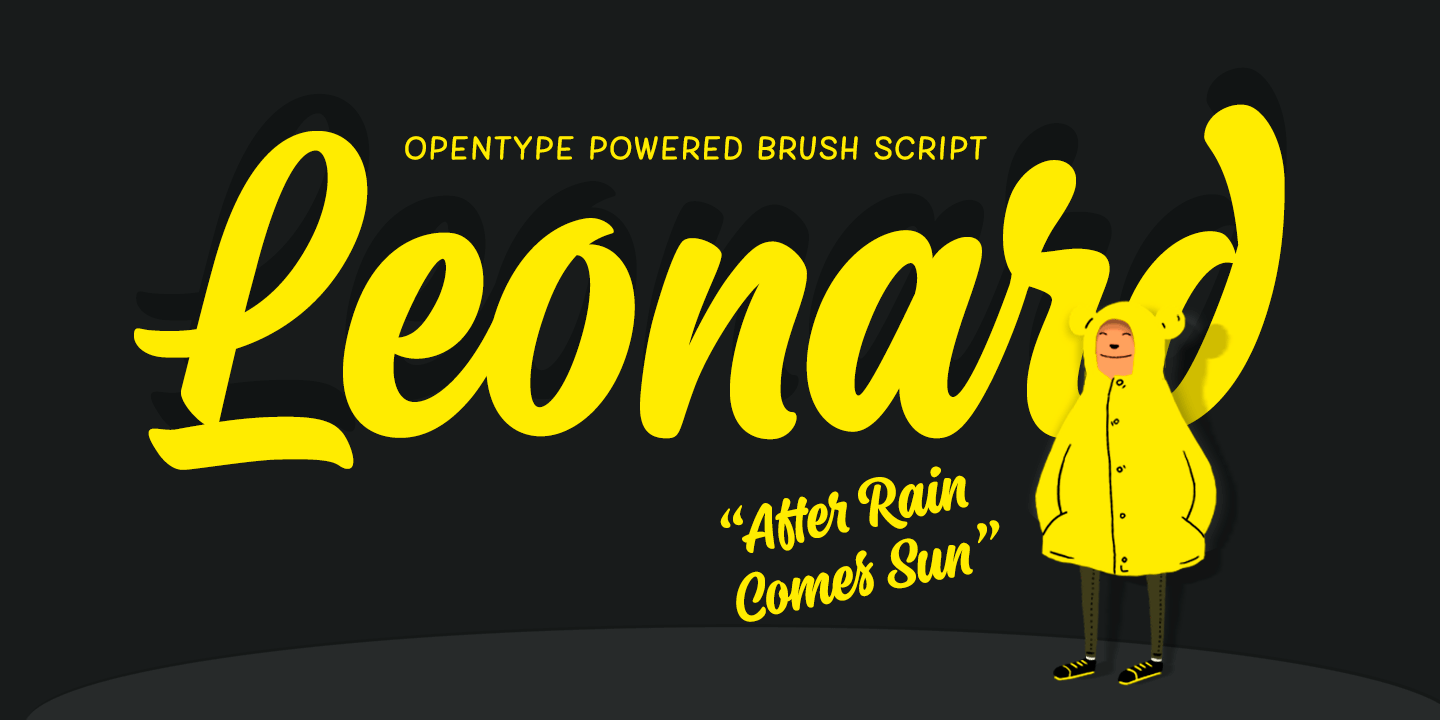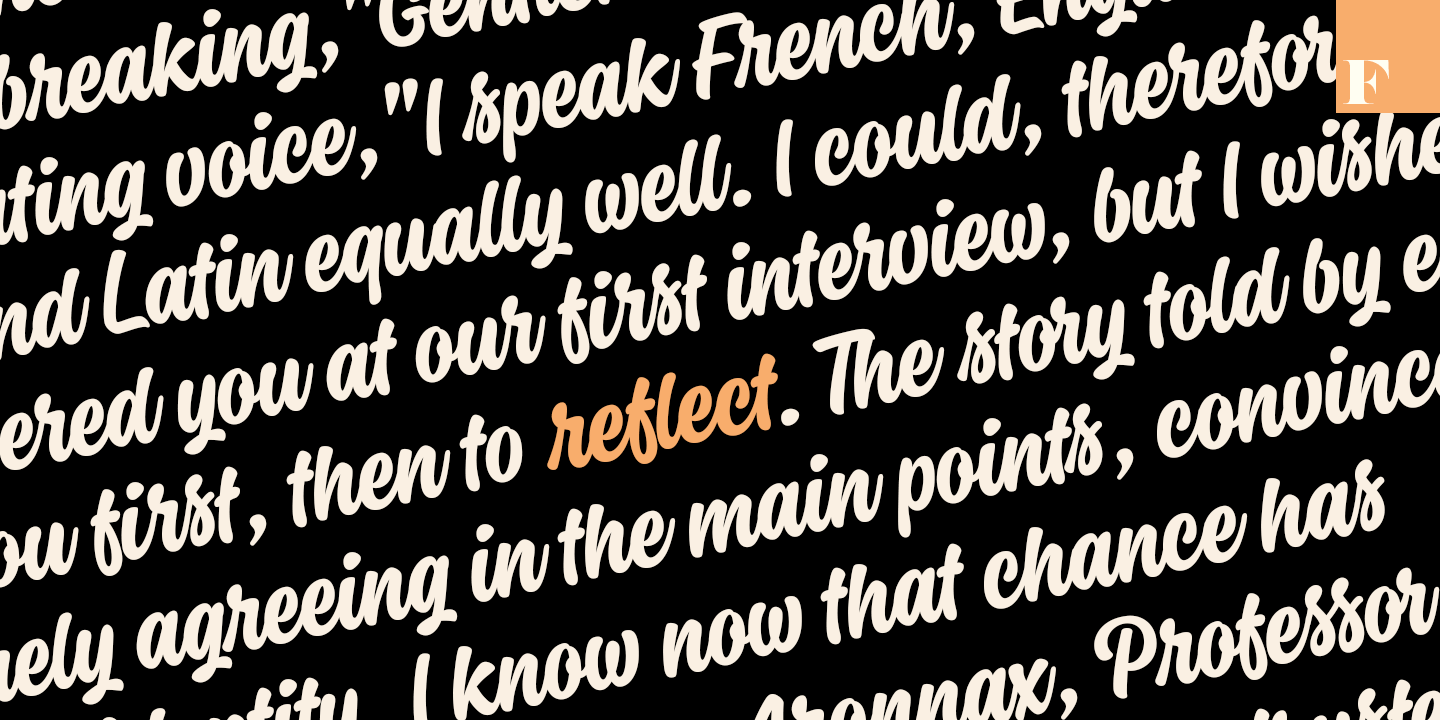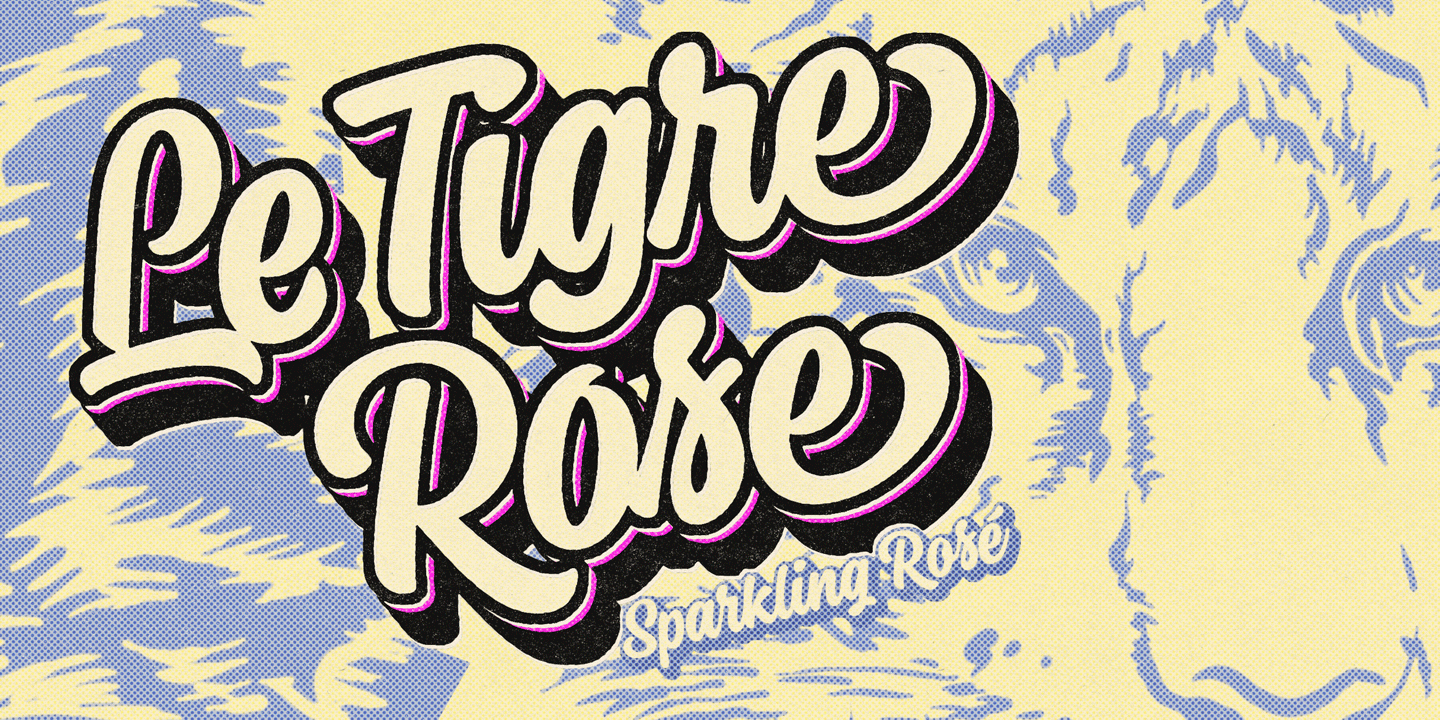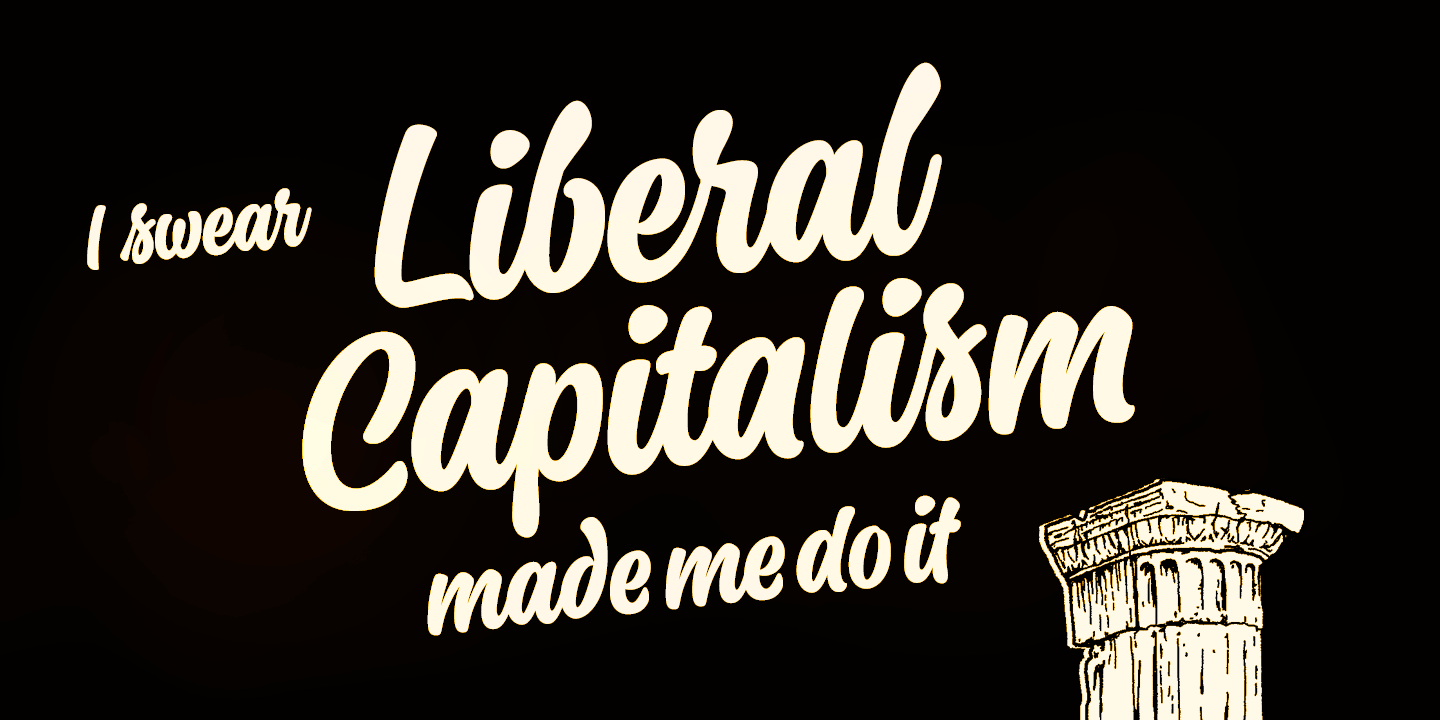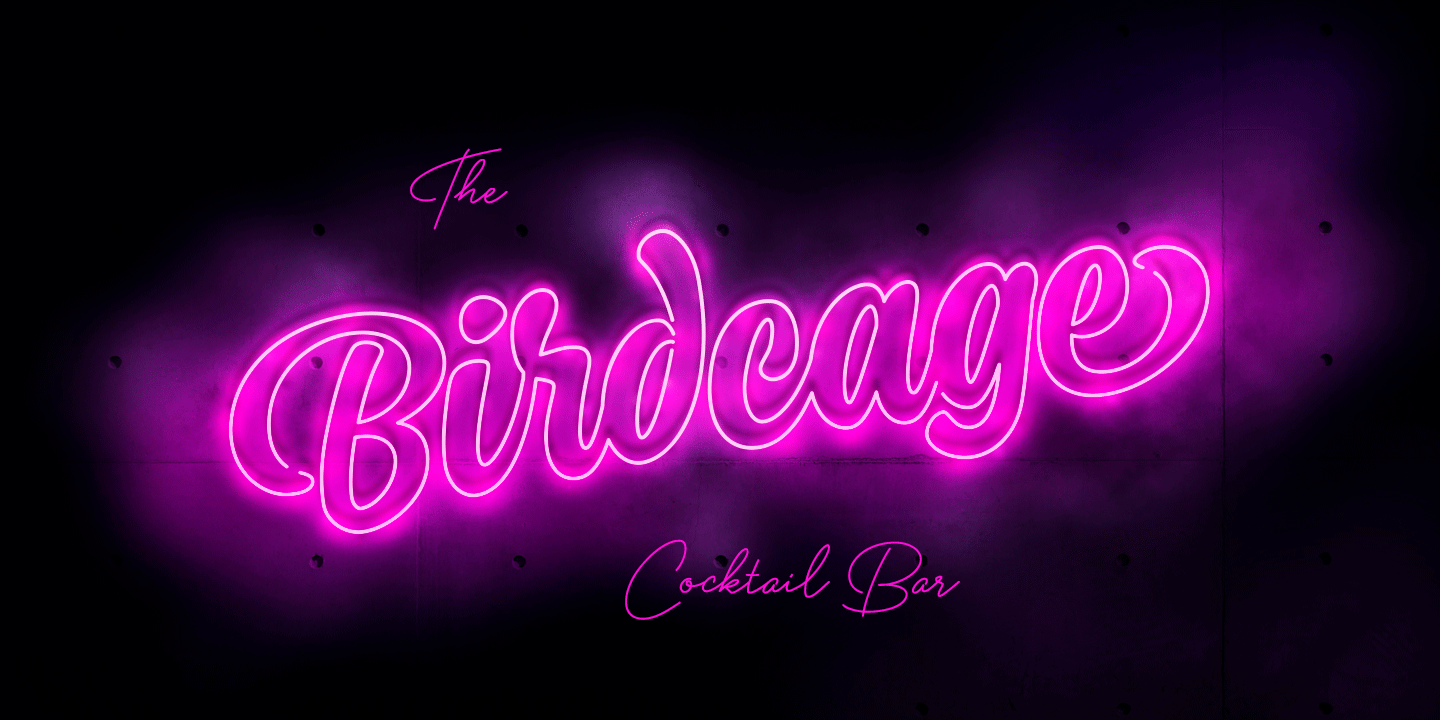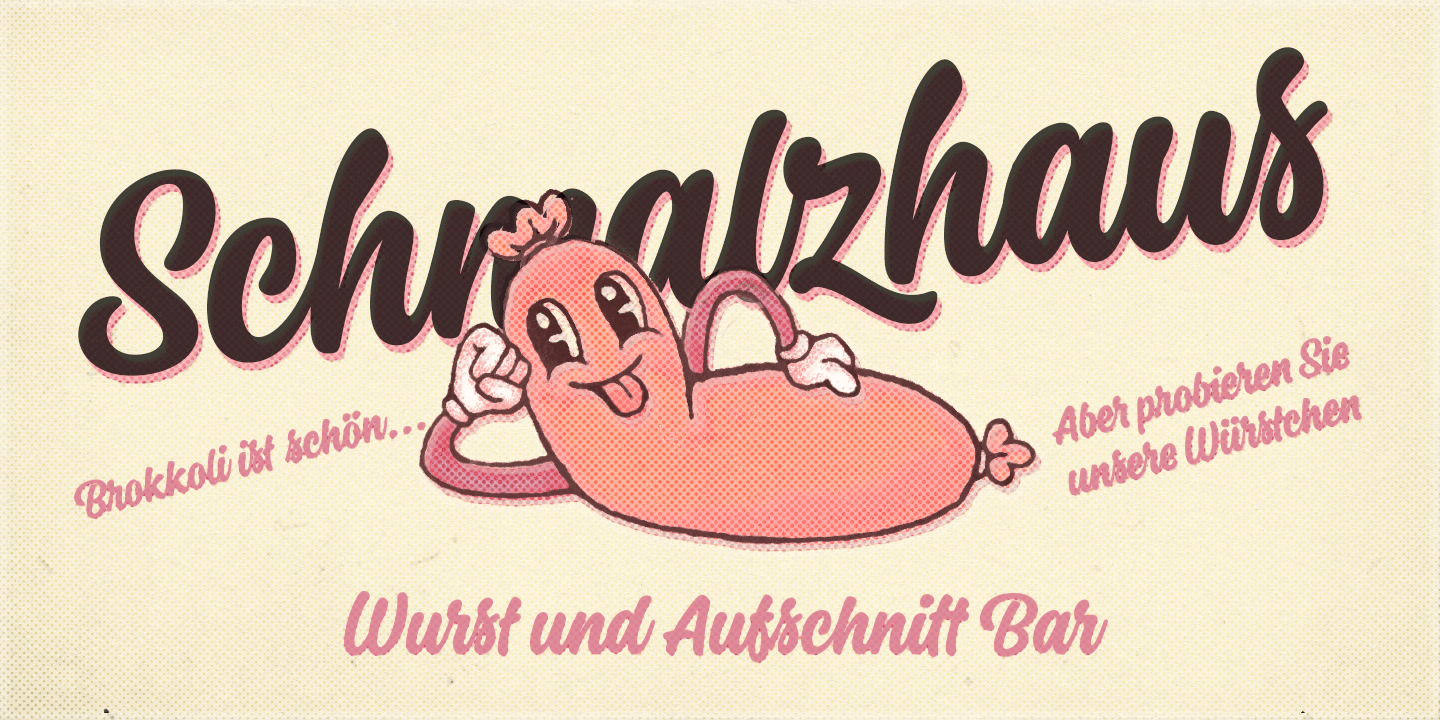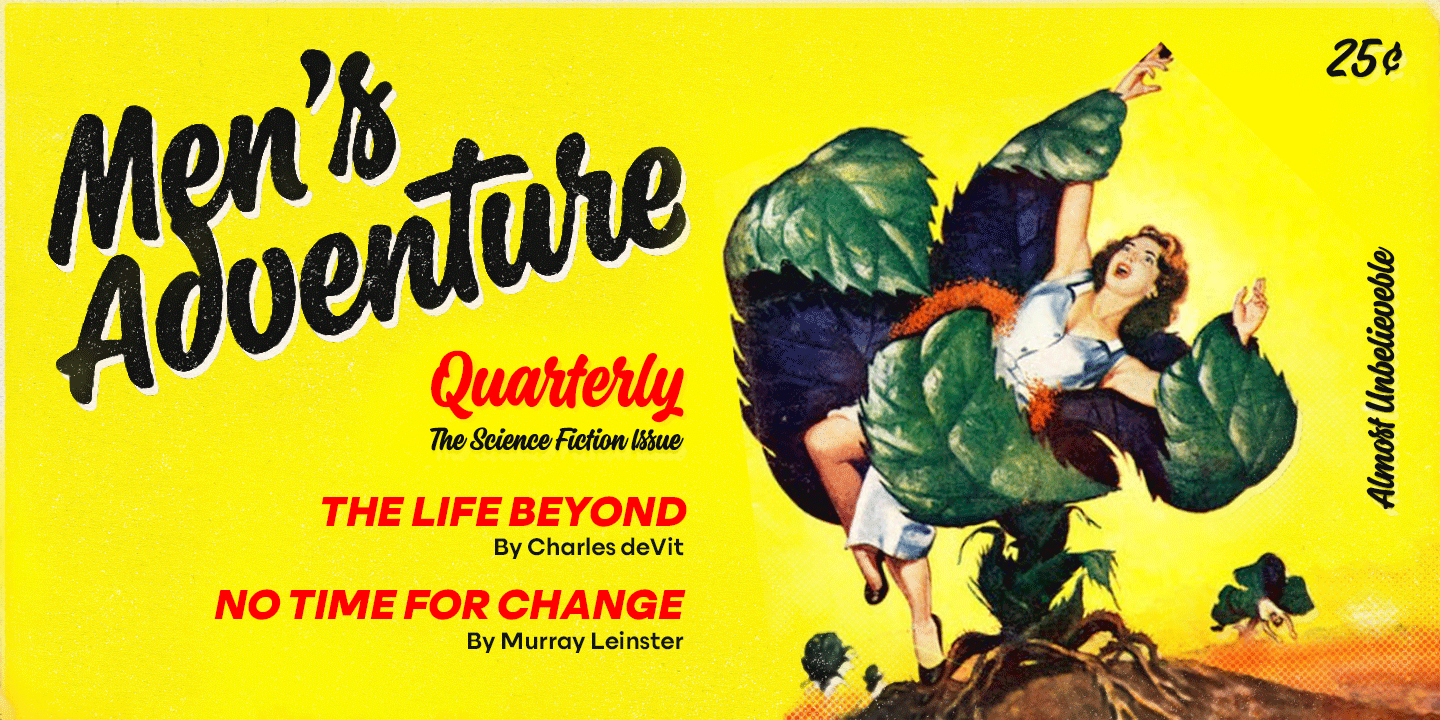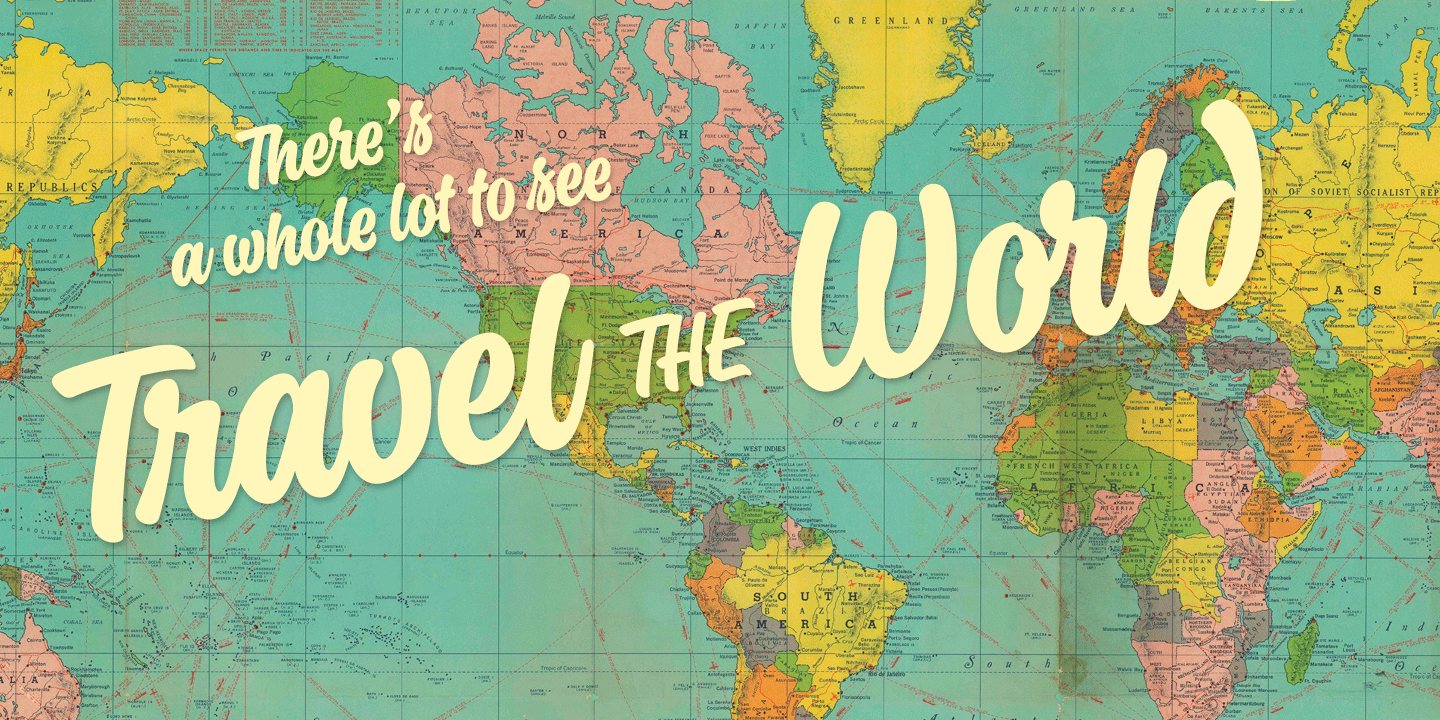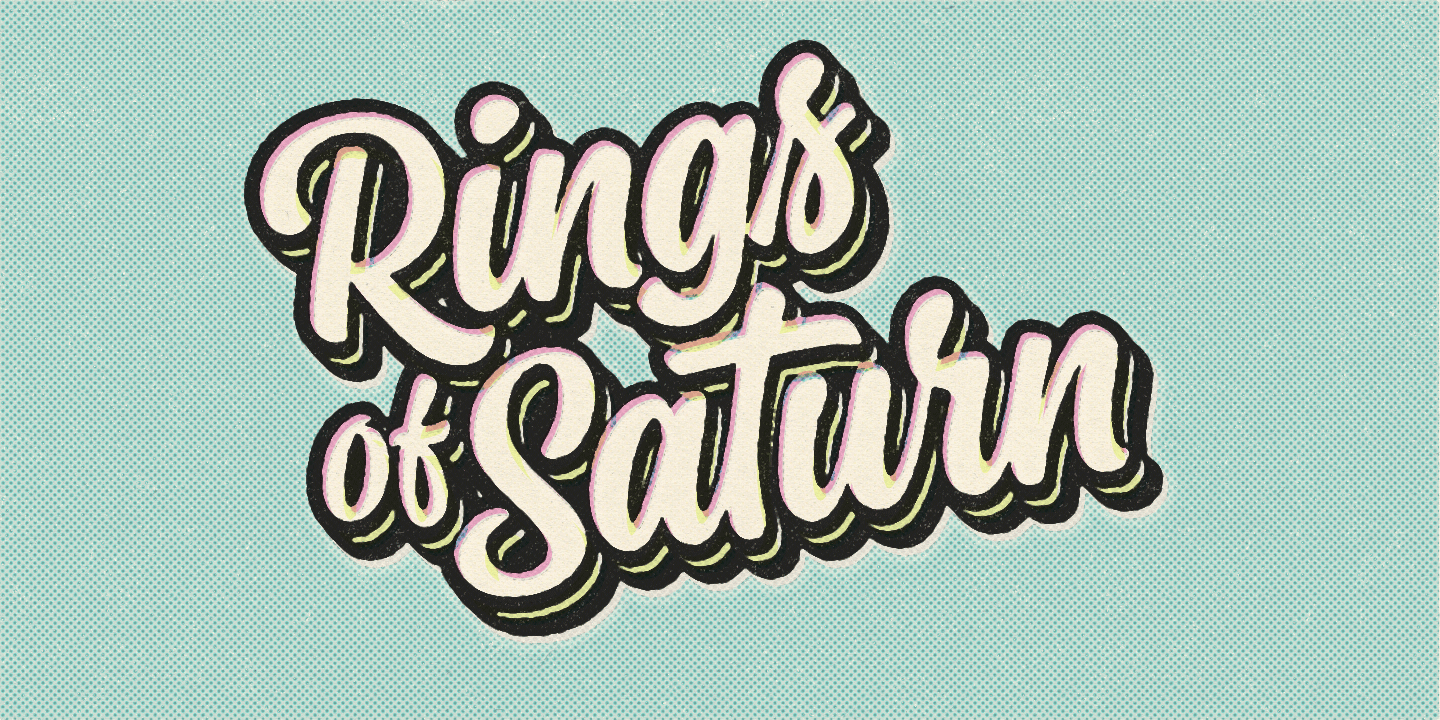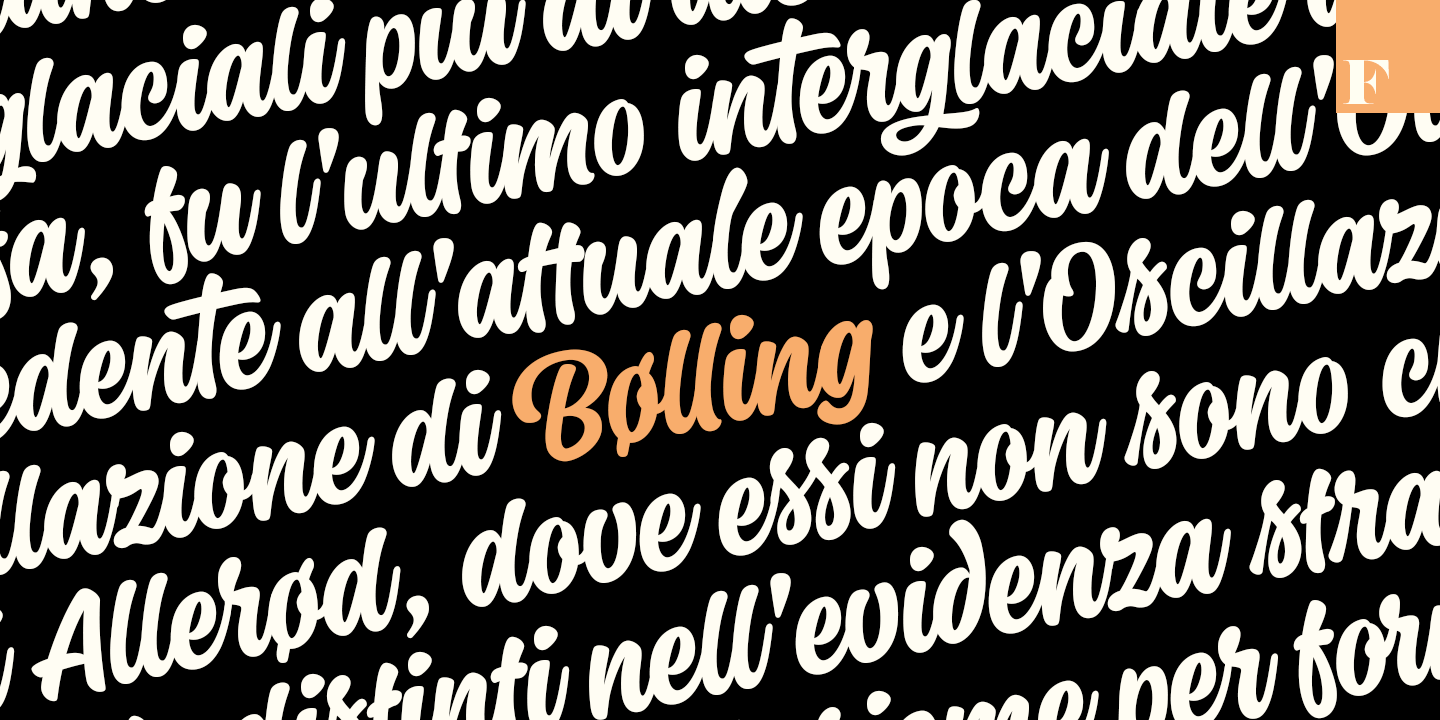
Leonard is packed with OpenType features. It has Contextual Alternates and Standard Ligatures that help to maintain the flow and keep the letters from colliding. These features are automatically on. In addition it has Discretionary Ligatures, Swash, Stylistic and Titling Alternates that you can access from OpenType controls for a more custom look, and you can check the Glyphs palette for even more alternates from the total 534 glyphs. All characters shown in the posters can be found inside the font.